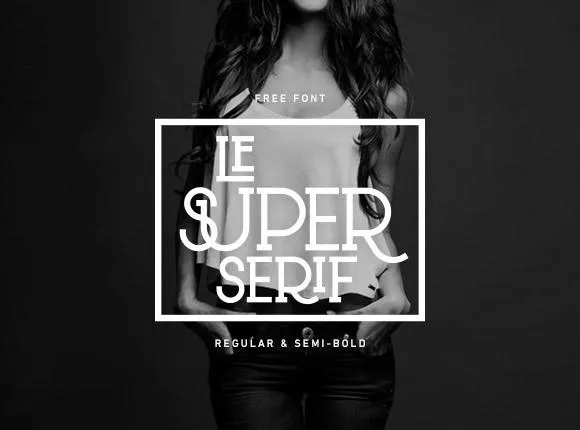
We're glad to feature this eye-watering free le super serif font. Freebies Bug has created this amazing and beautiful free font. This is absolutely fancy font so you can easily make world-class designs.